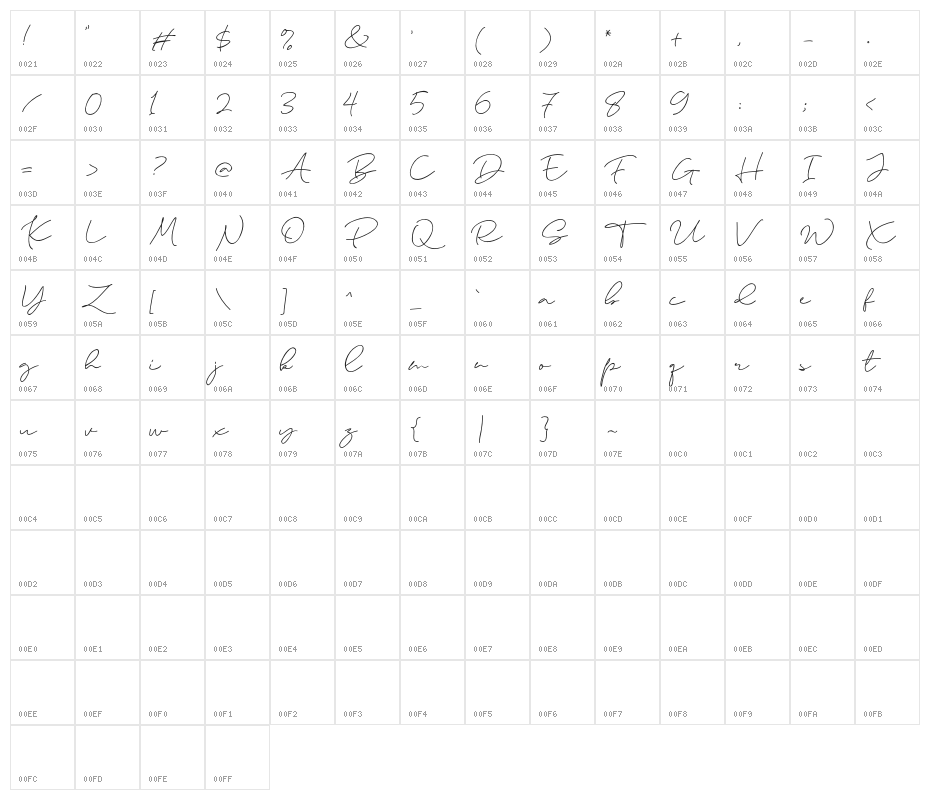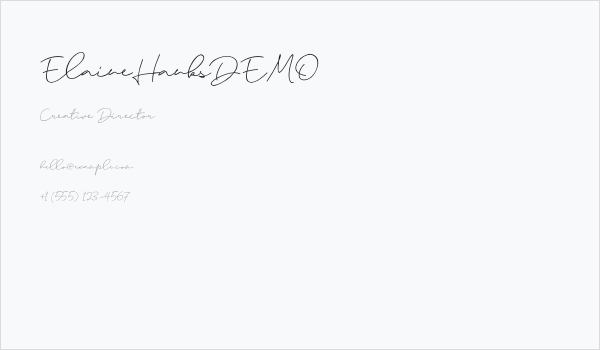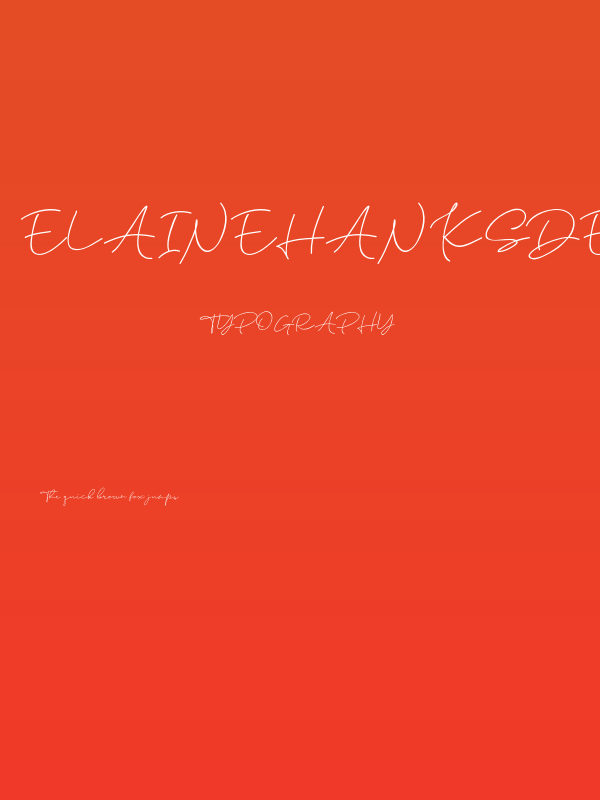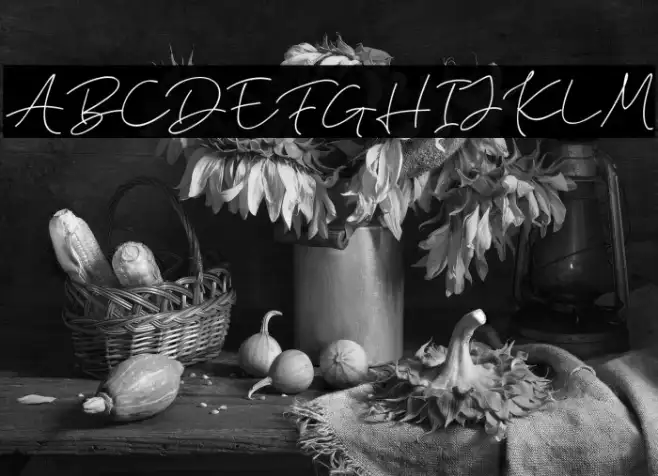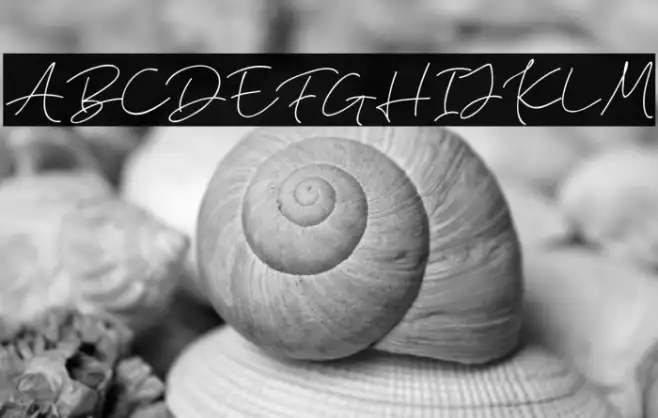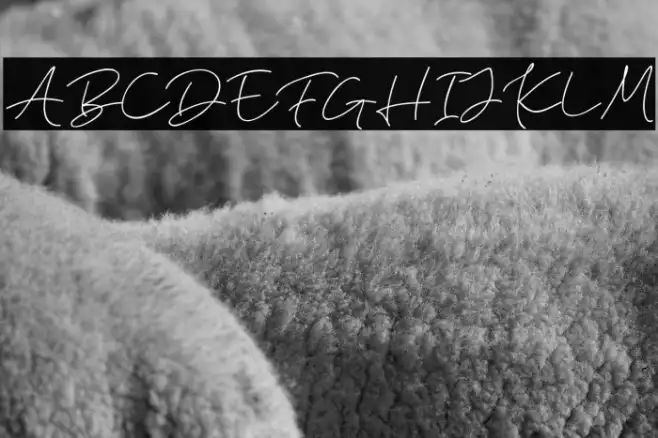
ElaineHanksDEMO Font
ElaineHanksDEMO Description
This font exudes a casual elegance with its flowing, handwritten style. The characters are connected in a fluid manner, reminiscent of cursive handwriting, giving it a personal and intimate feel. The strokes are smooth and consistent, with a slight variation in thickness that adds a touch of sophistication without compromising readability. The uppercase letters maintain a graceful balance, while the lowercase letters are slightly more playful, adding a dynamic touch to the overall appearance. Numbers and special characters are crafted with the same attention to detail, ensuring a cohesive look across all elements.
| Overall Style | Elegant, Casual |
| Use Case | Invitations, Personal branding, Greeting cards |
| Proposed Projects | Ideal for wedding invitations, personal branding, greeting cards, and elegant packaging designs. |